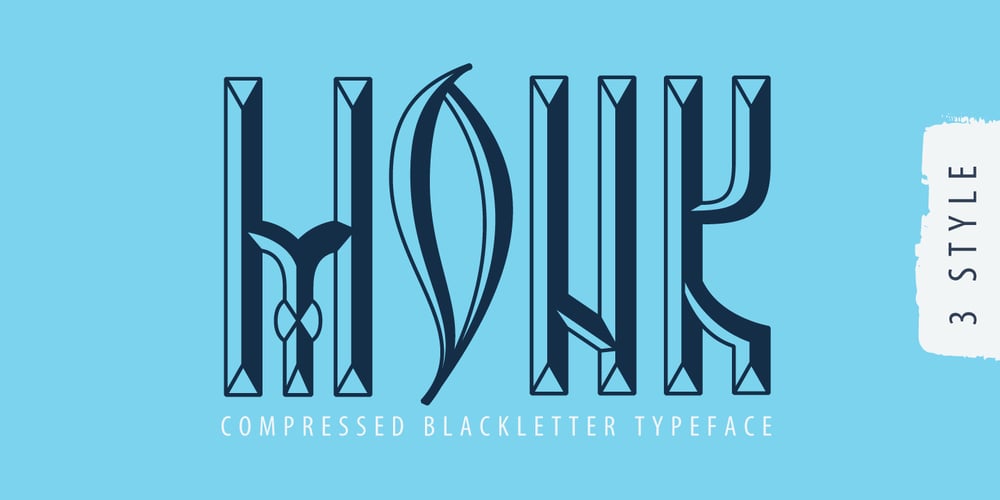
Northern Monk Font Family was designed by Roman Korolev and published by Kaer. Northern Monk contains 3 styles and family package options. Hi, guys! I like creating fonts with a story. Once me and my family were traveling and exploring the northern area of our region and came across an inscription carved on the wall of a monastery tower. It inspired me to create a full set of a multulingual font, but there is no lowercase letters. What’s included? Only uppercase Multilingual support Numbers Symbols Punctuation Ligatures If Northern Monk is not ok, please check out my Celtic Spiral font https://www.myfonts.com/fonts/kaer/celtic-spiral/I hope you enjoy this font. Follow my shop to receive updates of products and the very hottest news! If you have any question or issue, please contact me: kaer.pro@gmail.com Please request to add additional characters and glyphs if you need! Thank you!